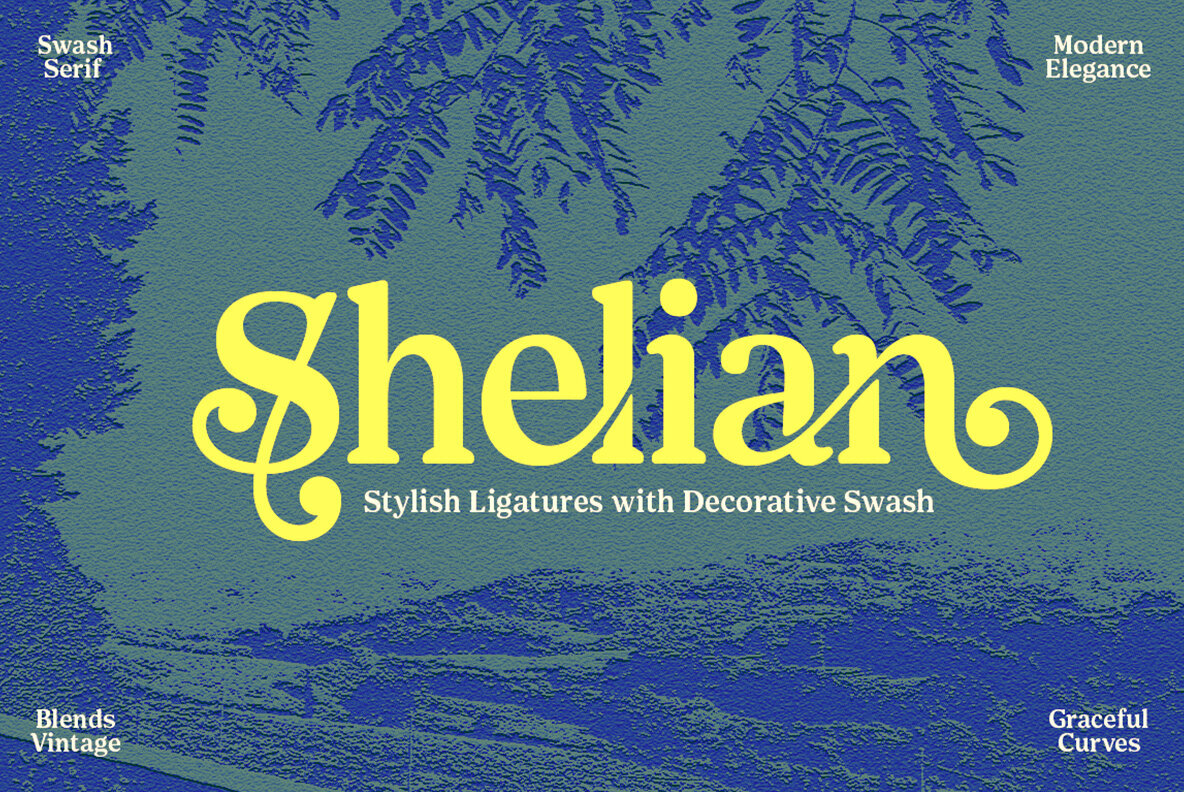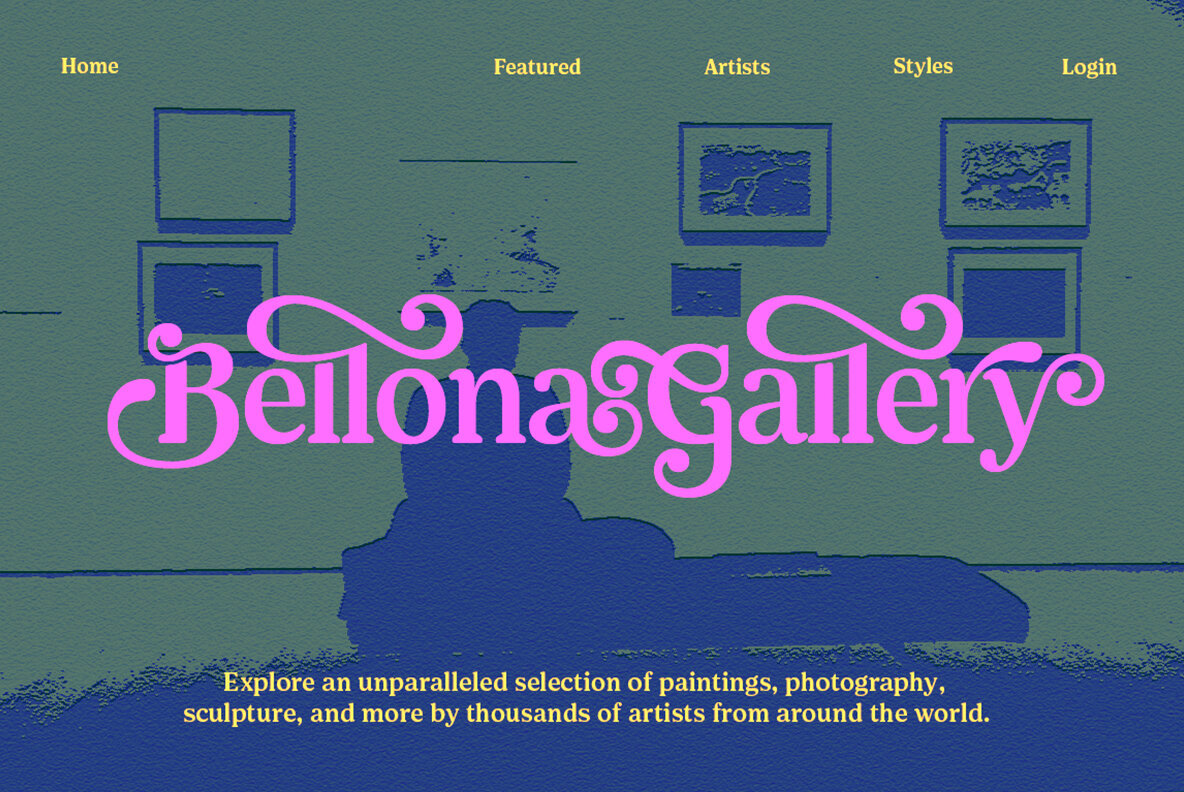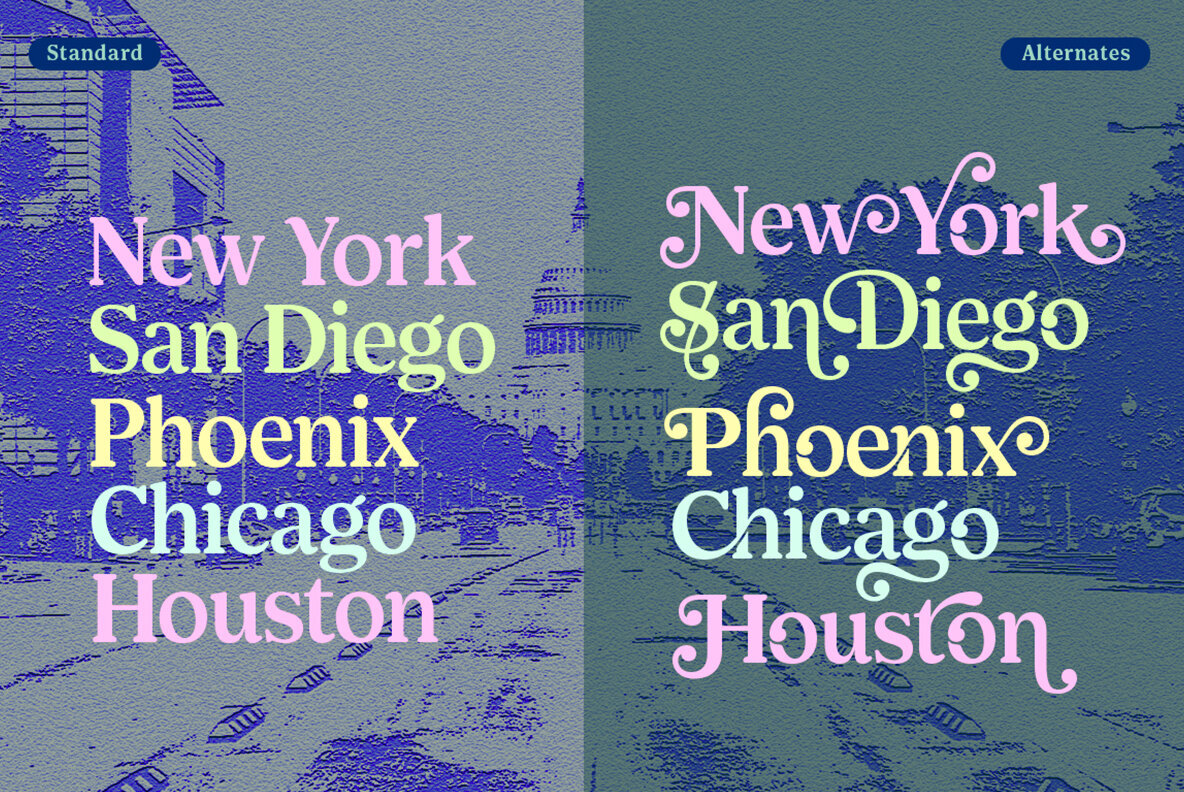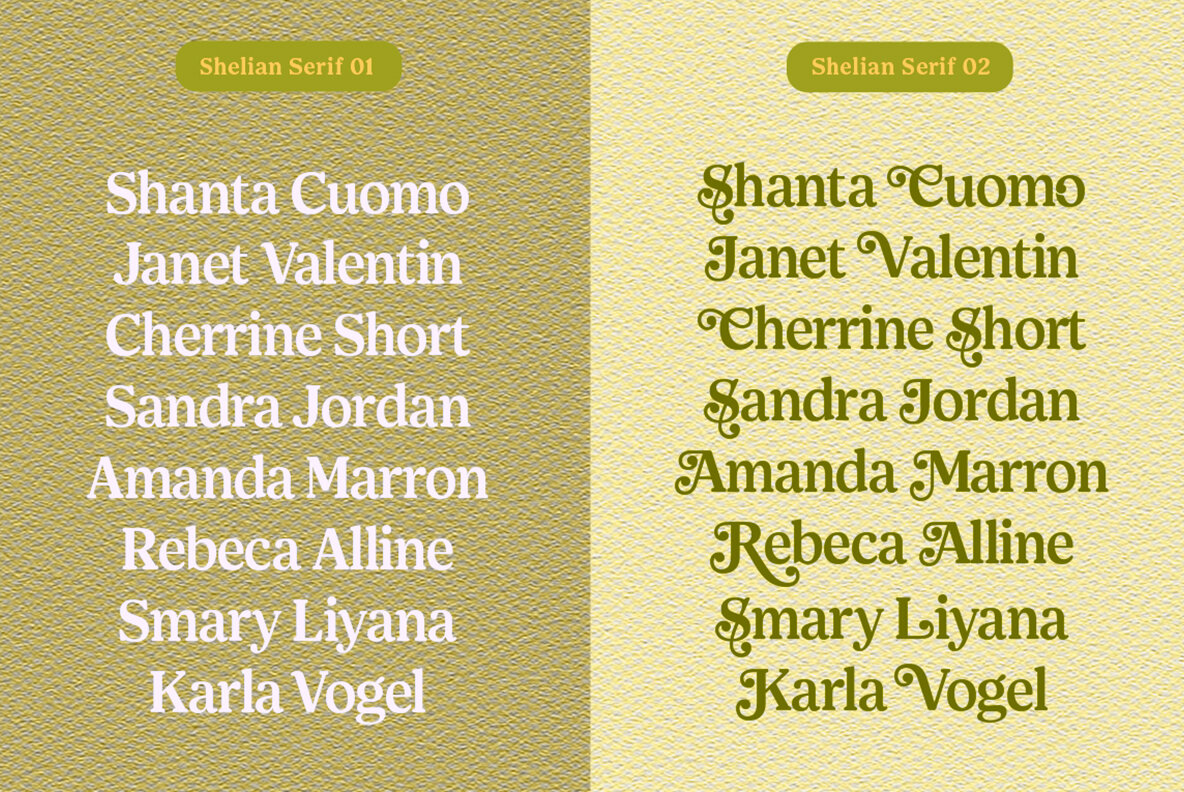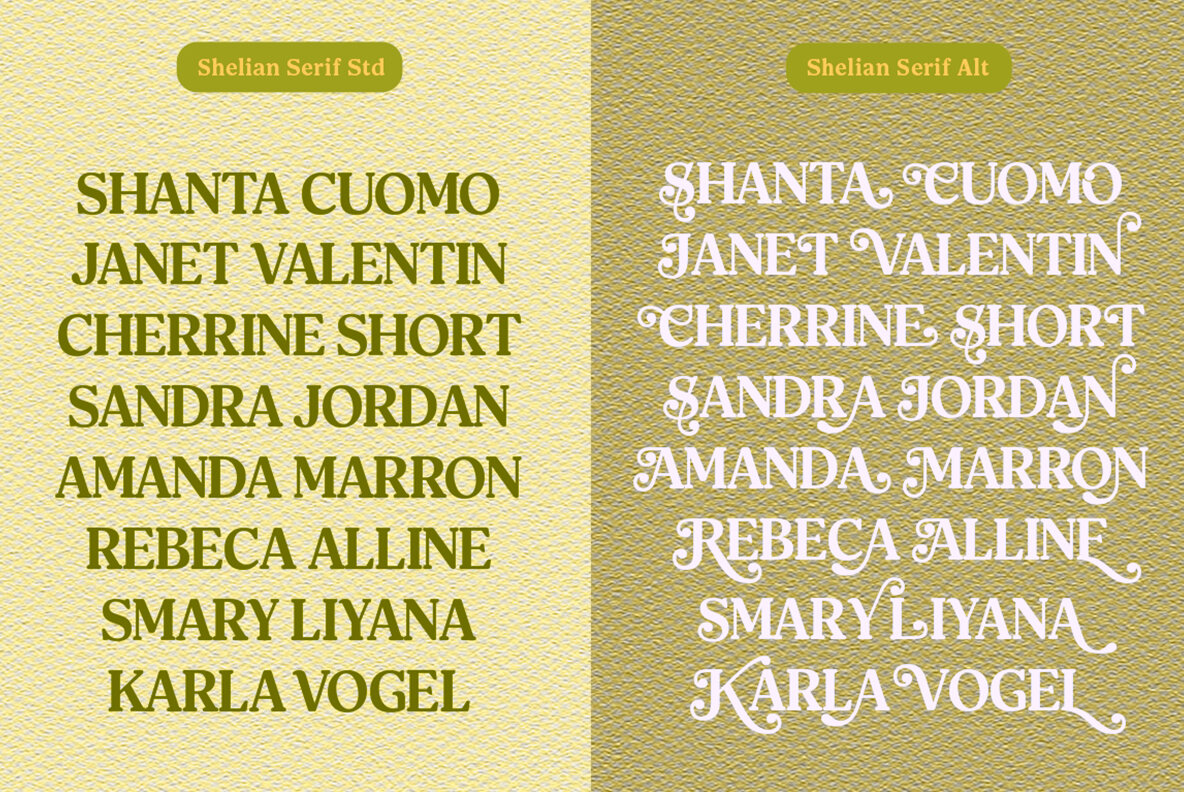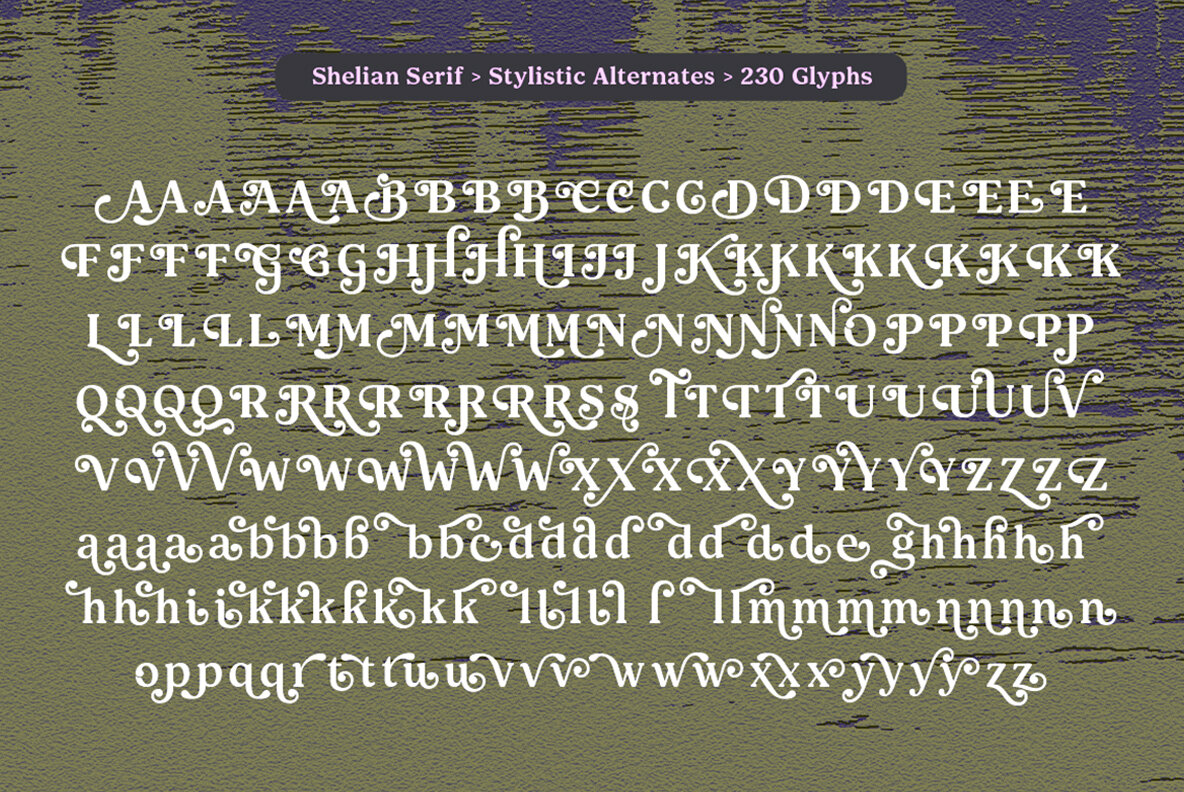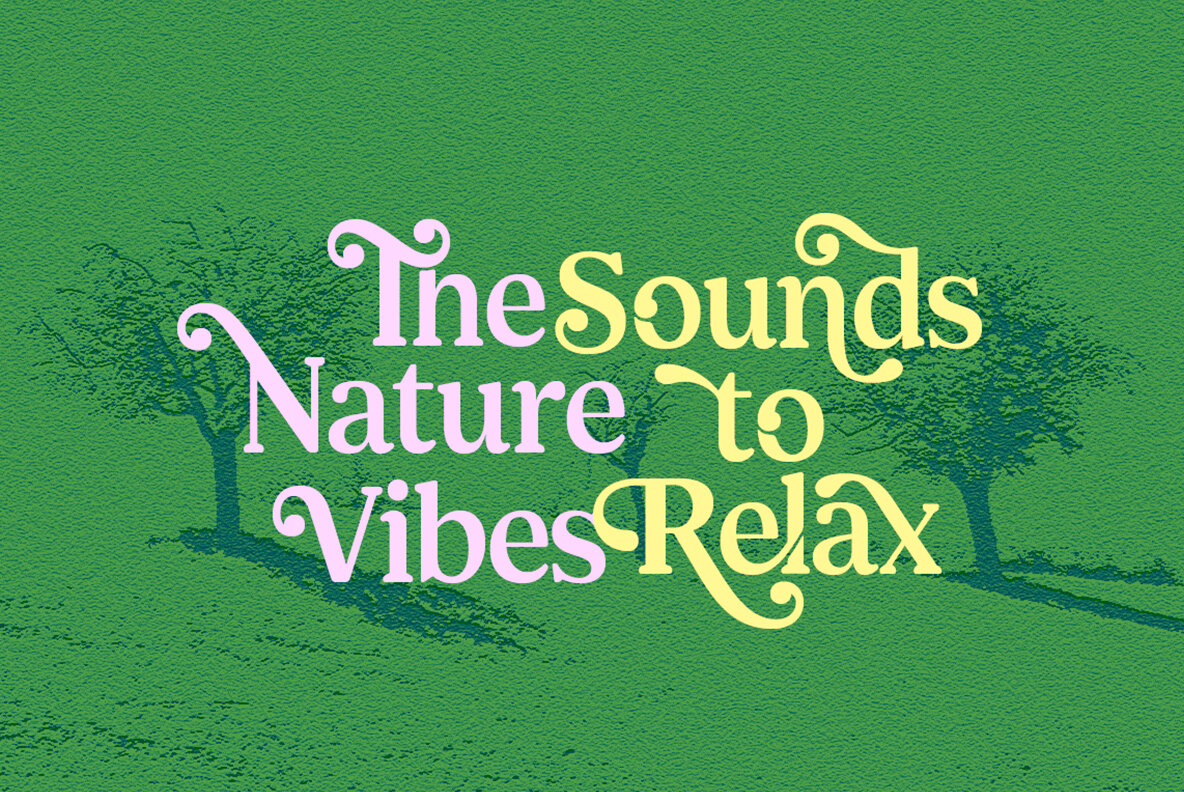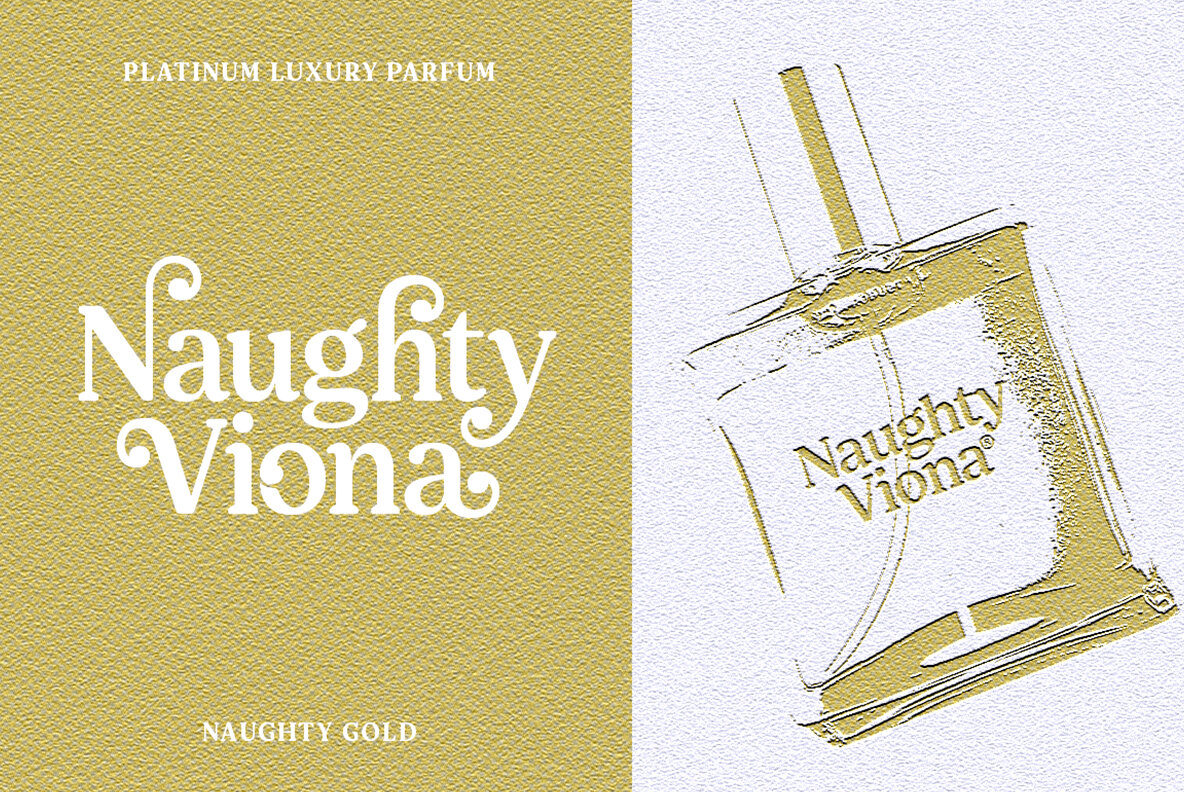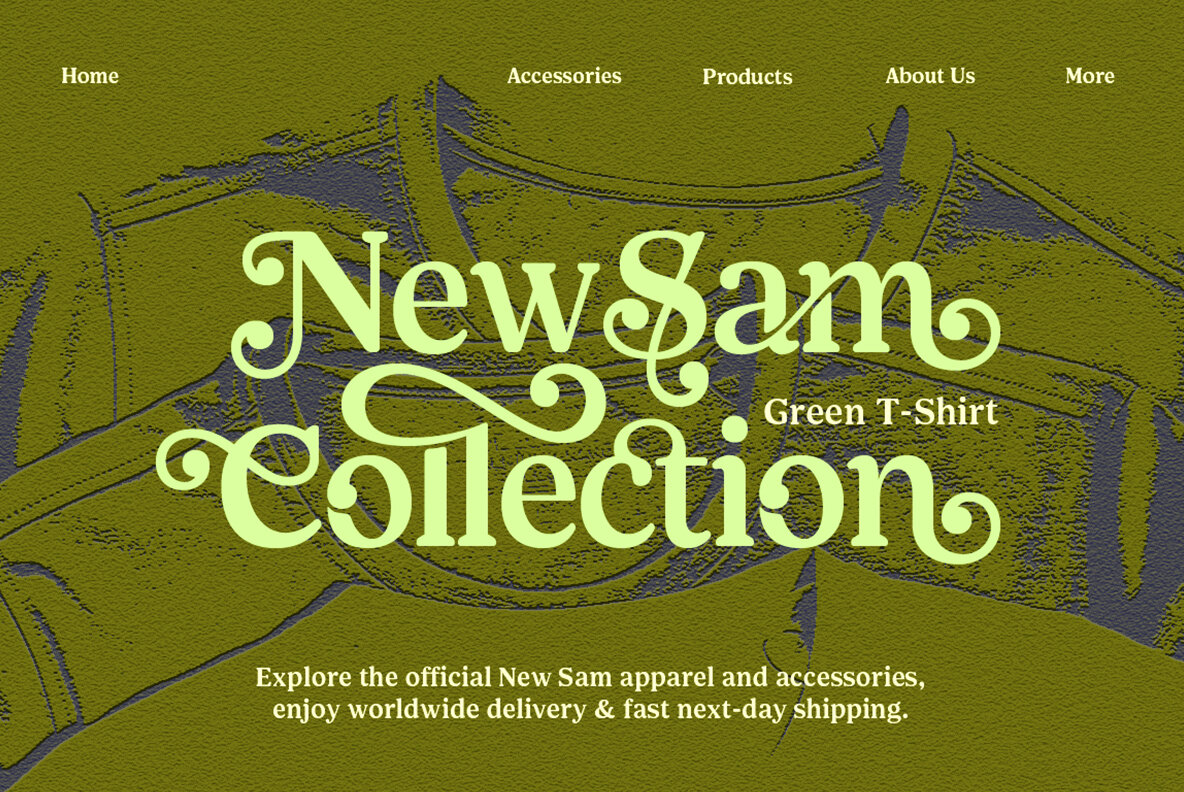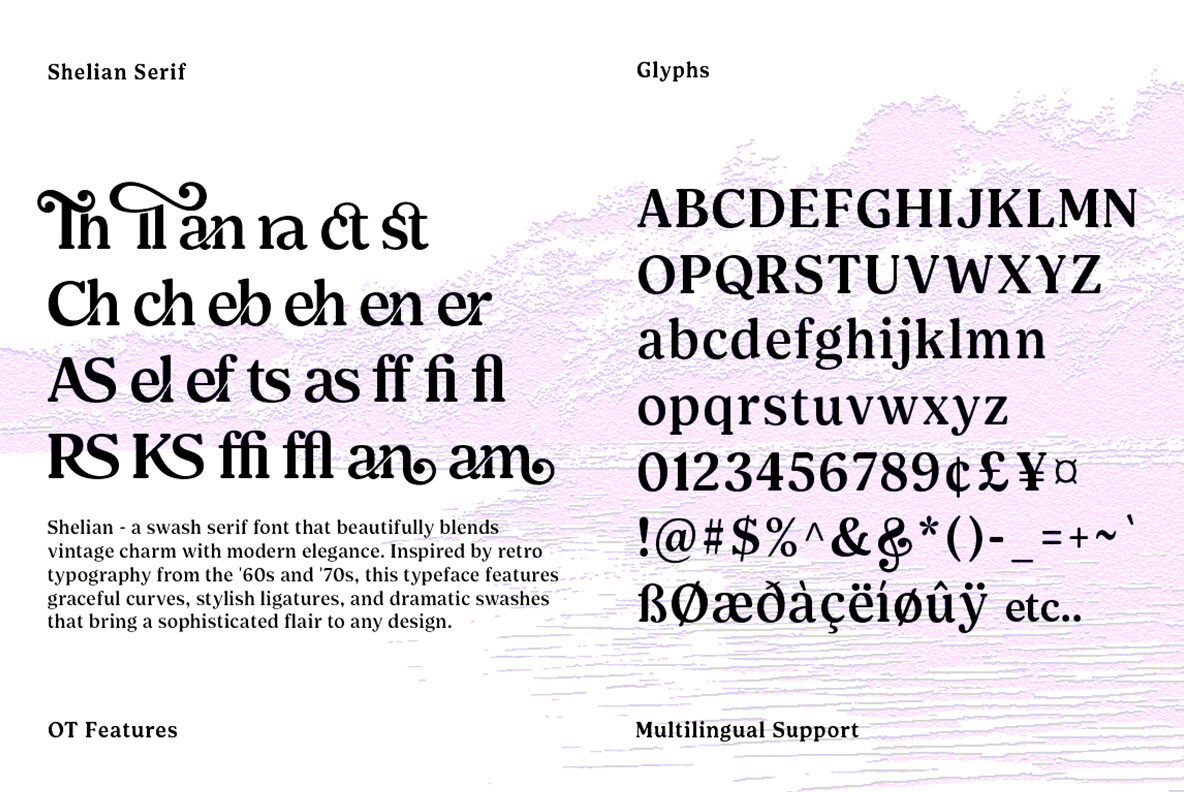
Shelian Font
Meet Shelian, a striking typeface that marries vintage charm with contemporary elegance. With roots in the expressive typography of the '60s and '70s, this font captivates with its graceful curves, decorative swashes, and distinguished ligatures. Offering dual styles and over 555 meticulously crafted glyphs, Shelian is a versatile choice for any design project. Whether designing an elegant logo, crafting romantic wedding invitations, or creating stunning packaging, Shelian infuses every project with a touch of retro glamour and modern sophistication. Its bold contrast strokes and vintage-inspired flair make it perfect for capturing elegance, nostalgia, and a sleek modern edge.Shelian: A Unique Swash Serif Font